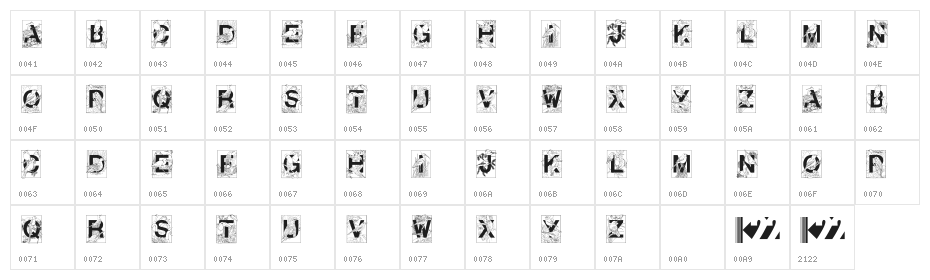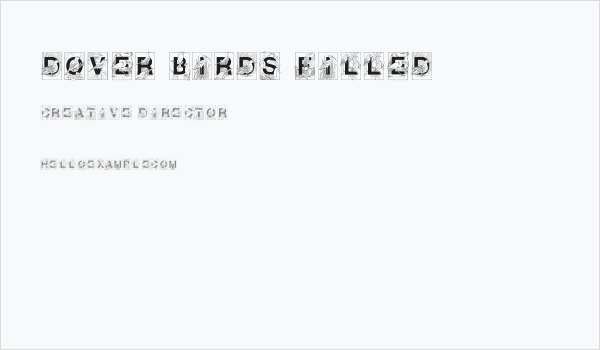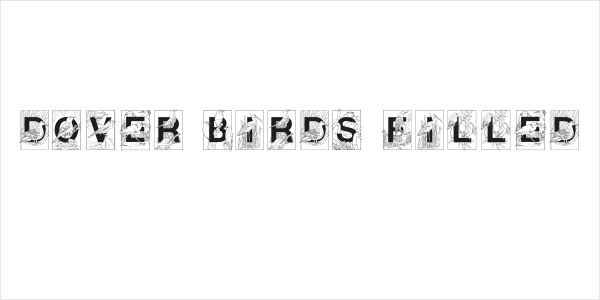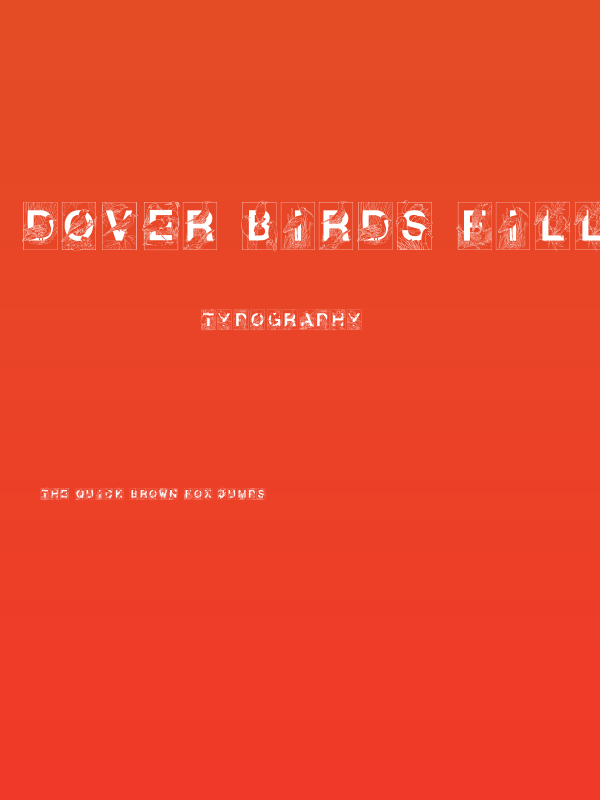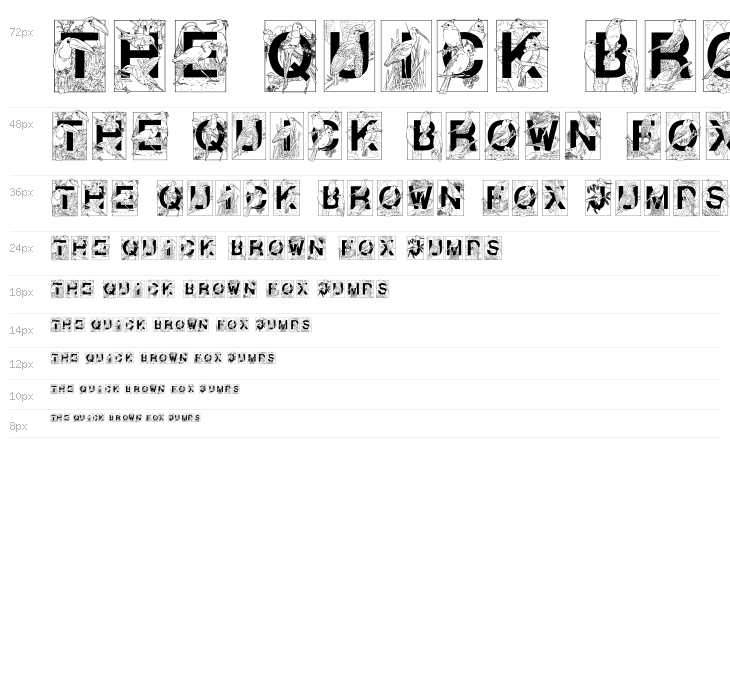
Dover Birds Filled Font
Dover Birds Filled Description
This decorative font features uppercase and lowercase letters filled with intricate bird and foliage illustrations. Each character is uniquely designed, incorporating detailed imagery that creates a striking visual impact. The artistic style is reminiscent of vintage botanical prints, making it ideal for projects that require an elegant and nature-inspired aesthetic. The characters are enclosed within a square frame, adding a structured element to the whimsical designs. This font is perfect for creative projects that aim to capture attention with its elaborate and artistic presentation.
| Proposed Projects | Ideal for greeting cards, invitations, book covers, and artistic posters. |